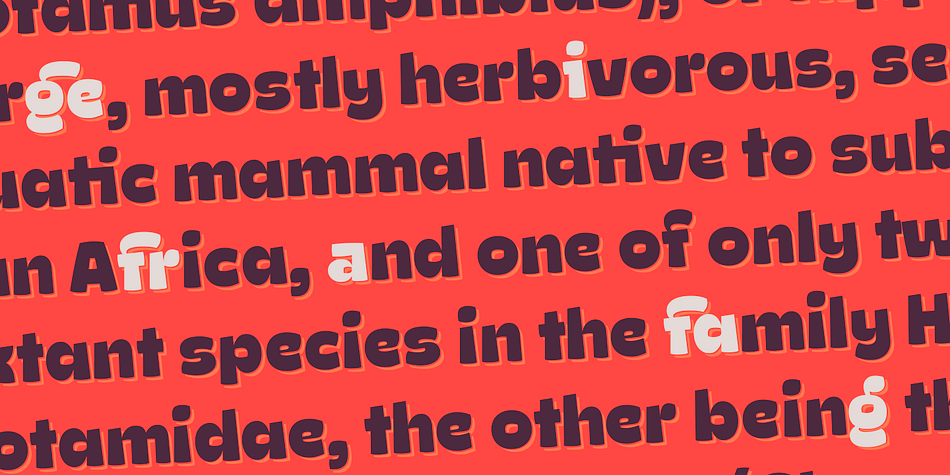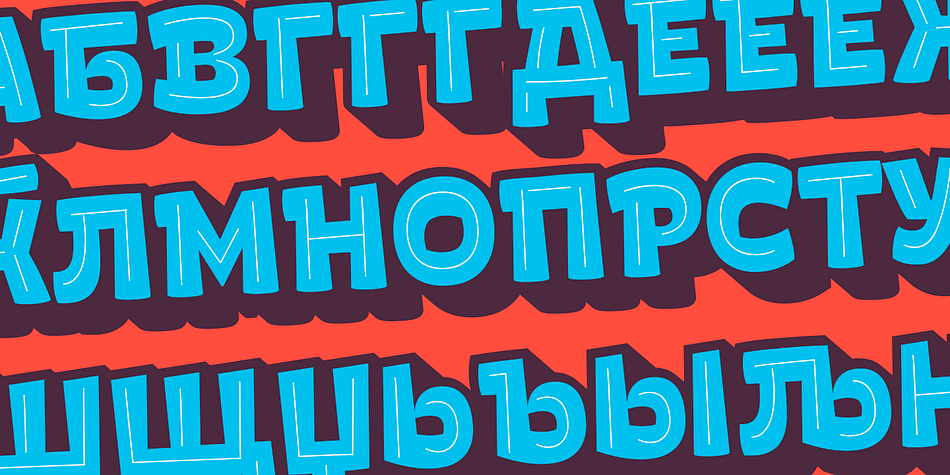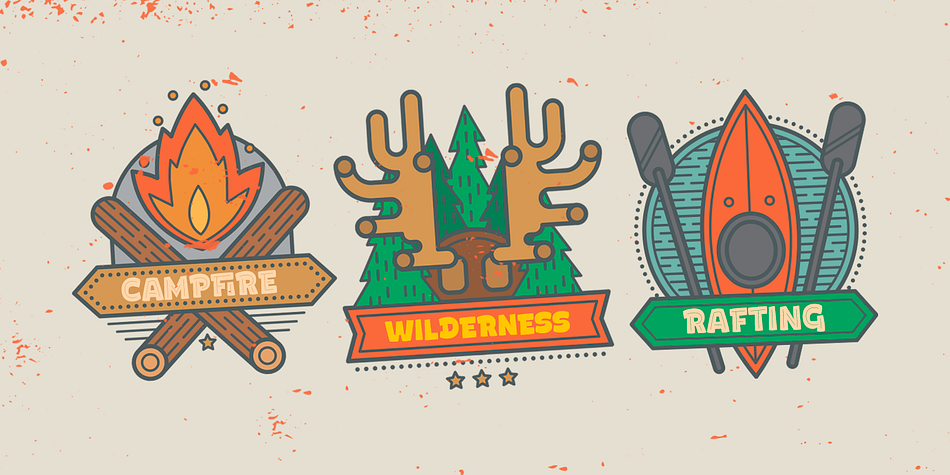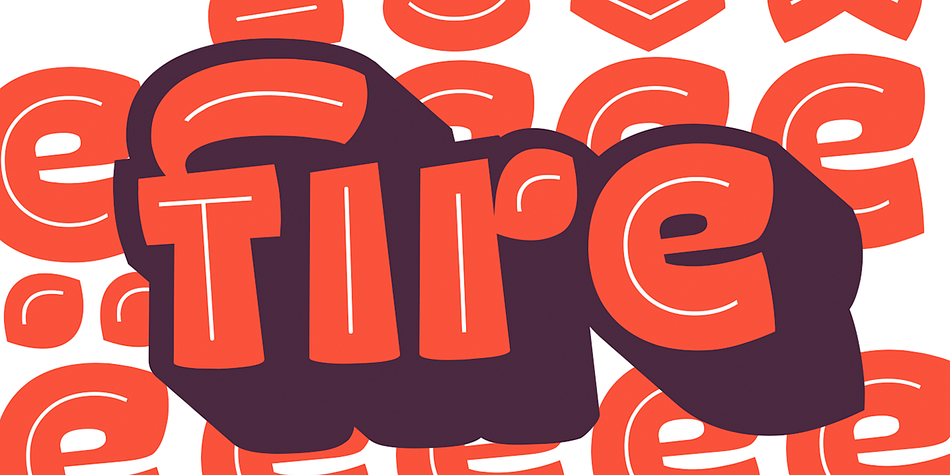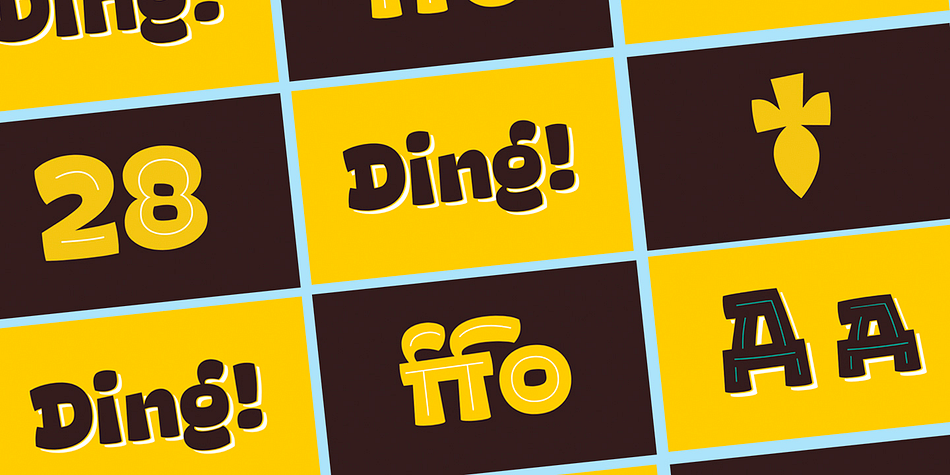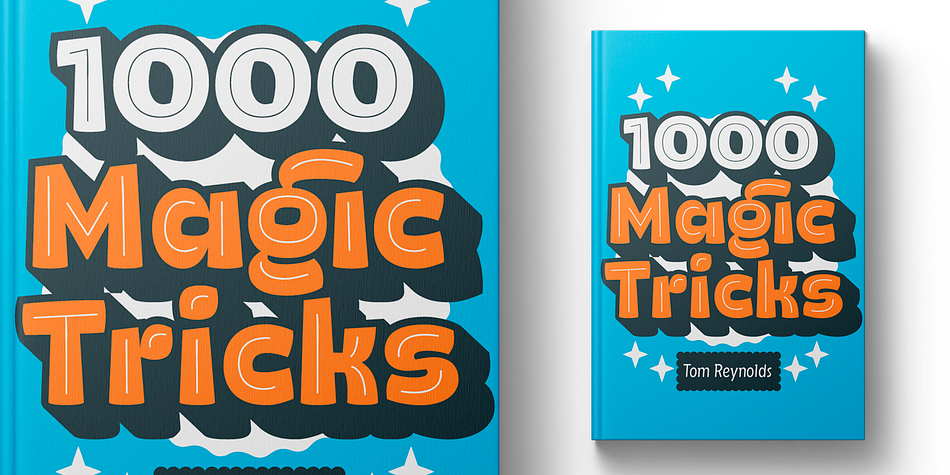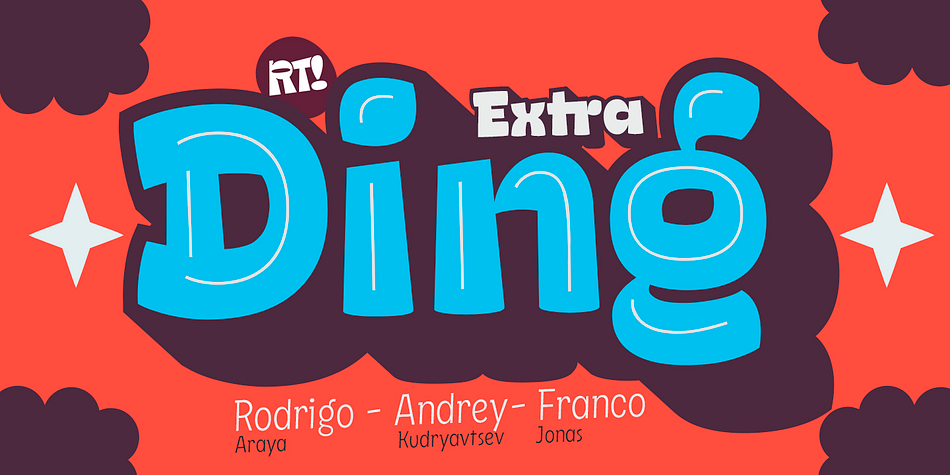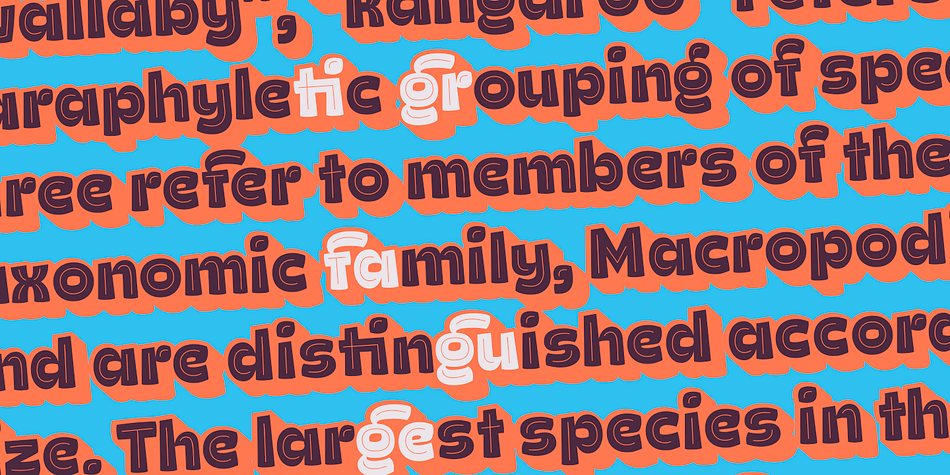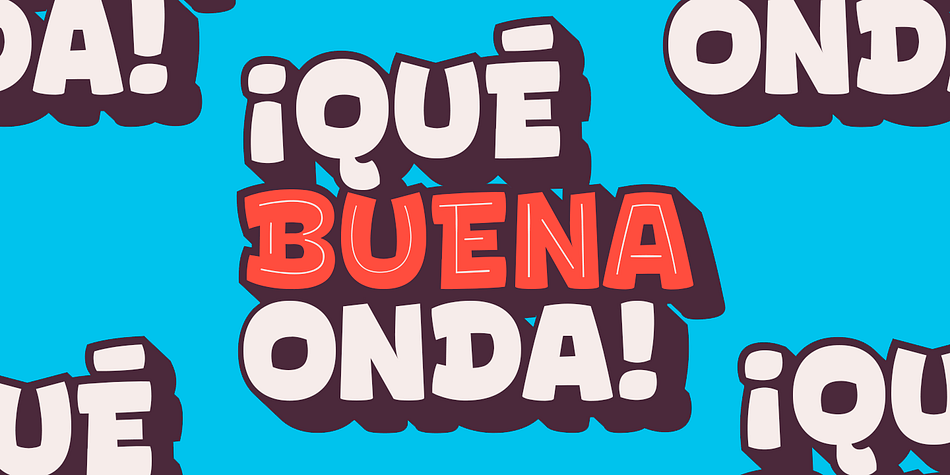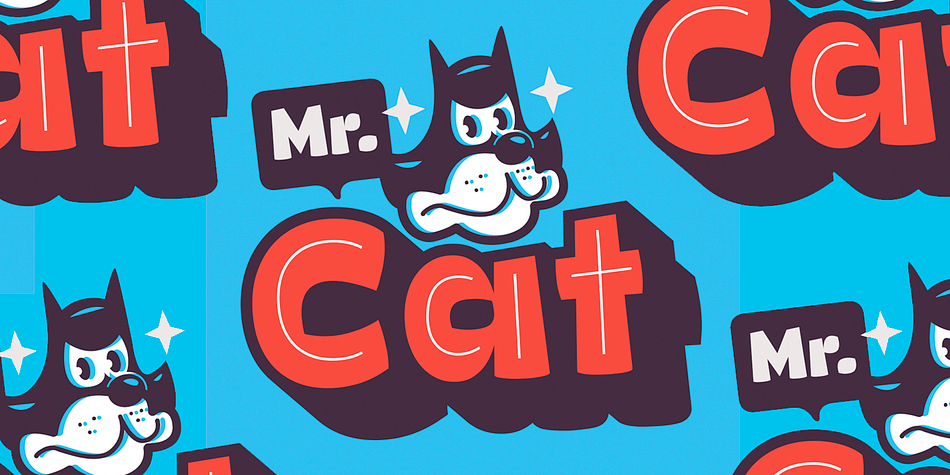
Designed by Andrey Kudryavtsev, Rodrigo Salas and Franco Hernández, Ding 2 Extra is a hand display and dingbat font family. This typeface has six styles and was published by Rodrigo Typo.
Ding Extra is an extended version of Ding that includes layers, shadows, lines, dingbats.
It is a very versatile font and contains Cyrillic alphabet, as well as many ligatures.